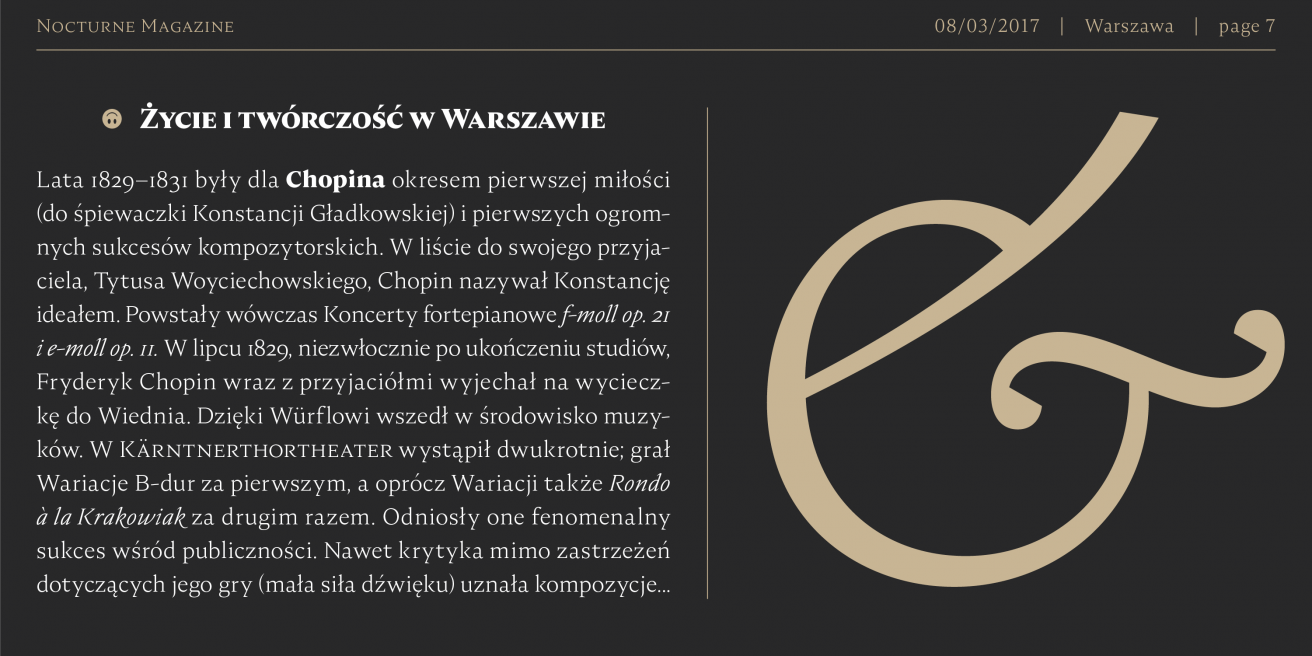
Nocturne Serif - Proving That Serifs Are Still Cool
Two serif fonts featured in a row? I thought those
were
just for old books! Doesn’t the internet only want to use sans fonts now?
Well,
hypothetical strawman, it turns out that serif fonts are useful for plenty of things, not
just
text in an old book! In fact, modern serifs aren’t limited to paragraph text, they can look
just
as great used as a headline font or blown up on a billboard. The best fonts can do both.
Nocturne Serif is a great example of this, let’s take a look at why.
Like many serifs of its kind, Nocturne Serif looks
great as a display font. It has ample variation in the widths. On top of that, you will find
sharp angles where you have come to expect ordinary curves. This is especially true for the
large weights, that have an increased contrast.
Nocturne Serif isn’t limited to usage in display
sizes
though. If you grab a thinner weight or two, it works just as well as a text font. You
should
probably steer clear of older-style writings or designs when using this font, as it
definitely
has a modern feel. That said, at a small enough size it can work for almost any purpose, and
is
quite legible on top of it. The thin and light weights especially look great for page
numbers,
dates, or anything else involving numerals.
You can utilize Nocturne Serif in many places, but
why
would you want to use it at all? Simply put, it doesn’t look like other fonts. It has some
parallels to other modern serifs, but this font has a flair all to its own. It is bound to
get
noticed. And at the end of the day, isn’t that why you’re buying fonts in the first
place?